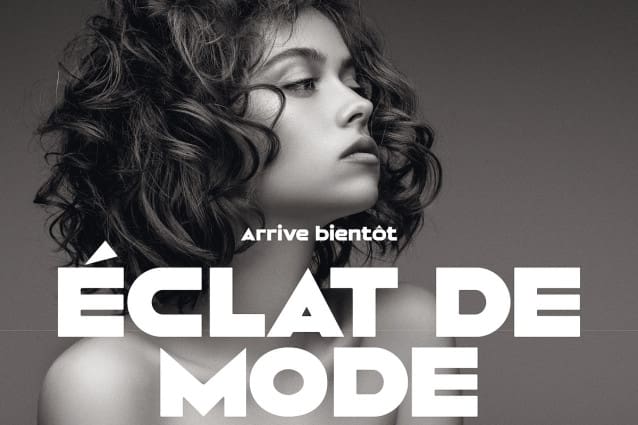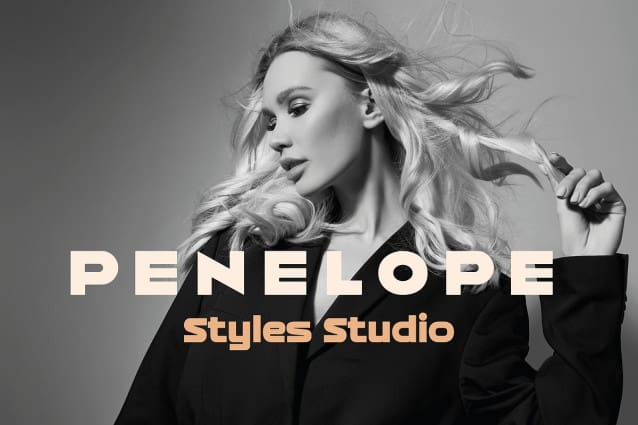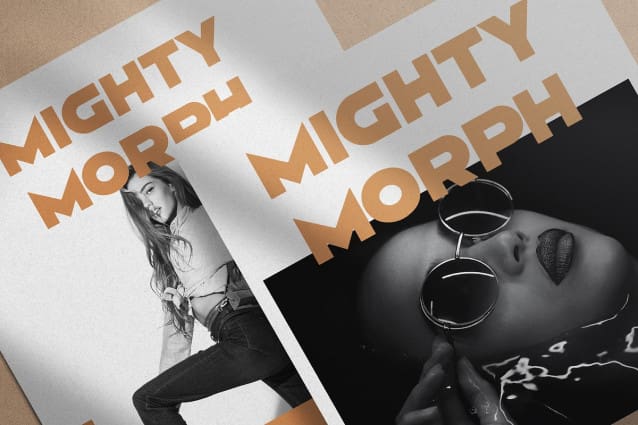
Mighty Morph Font
Mighty Morph Font is a bold, modern typeface ideal for making a strong visual impact. With its thick, commanding lines, it’s perfect for headlines, magazine titles, posters, flyers, and digital branding, particularly on social media.
Its robust and assertive design not only catches the eye but also gives text a gorgeous, attention-demanding presence. This versatile font ensures that messages are not just seen but felt, making it an excellent choice for both print and digital media where a statement of confidence and modernity is essential.